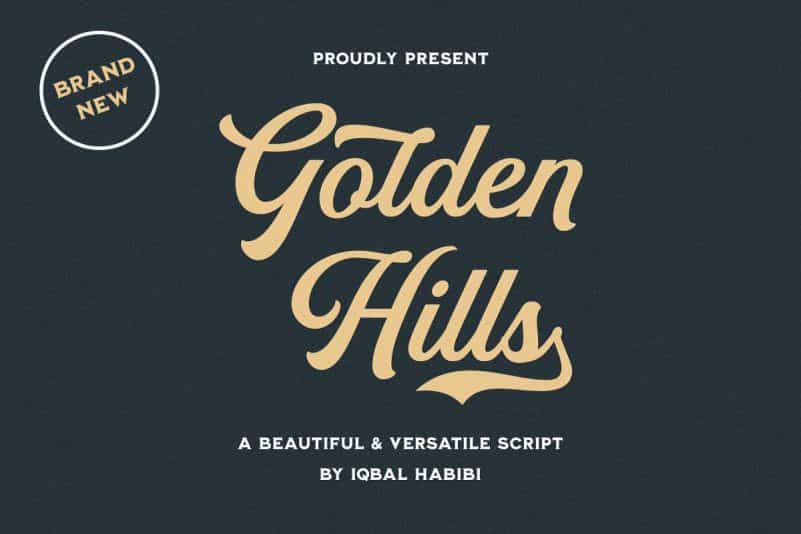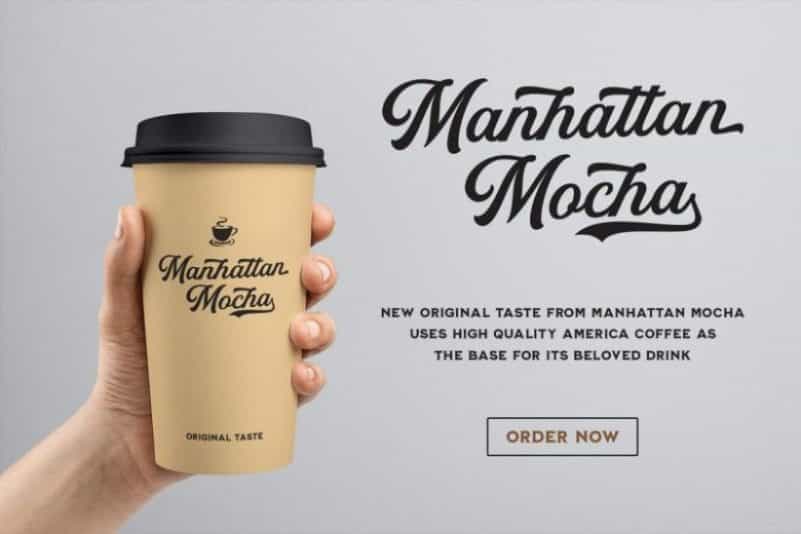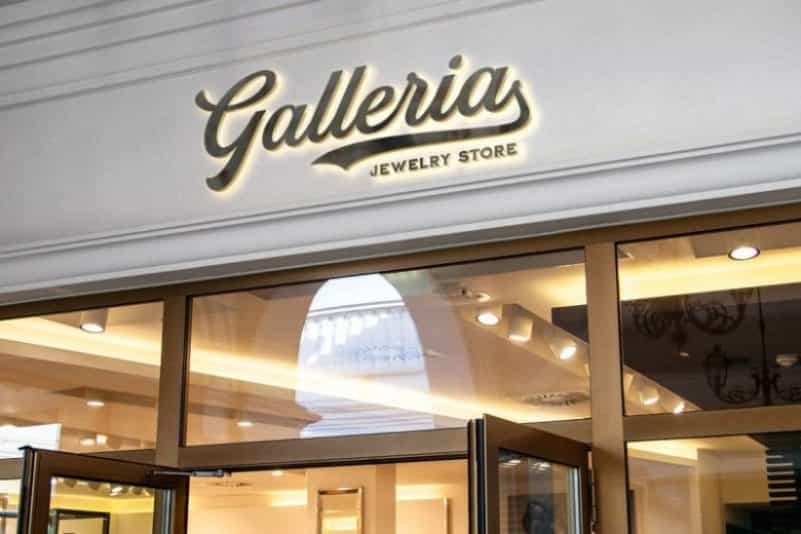
Introducing Golden Hills Font. It is was designed by iqbal habibi. It is a beautiful script designed based on the handlettering style. It’s has many alternative characters, also come with 2 style end swashes with 4 different length and ligatures. Very suitable for lettering art, logo, tshirt, packaging, sign, poster and much more. Golden Hills will add more style and art to your design works.